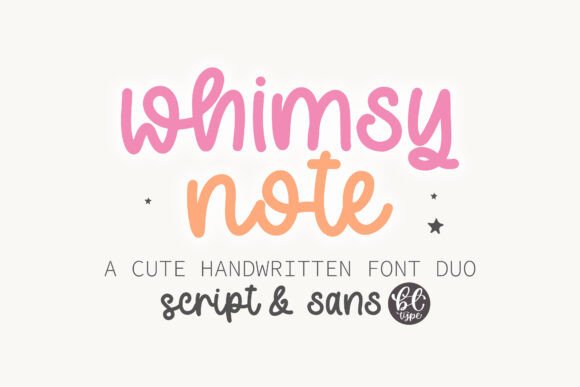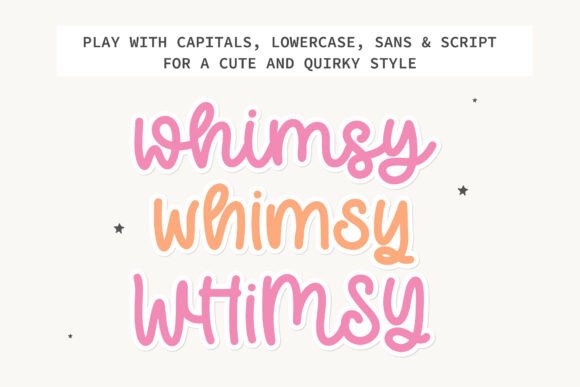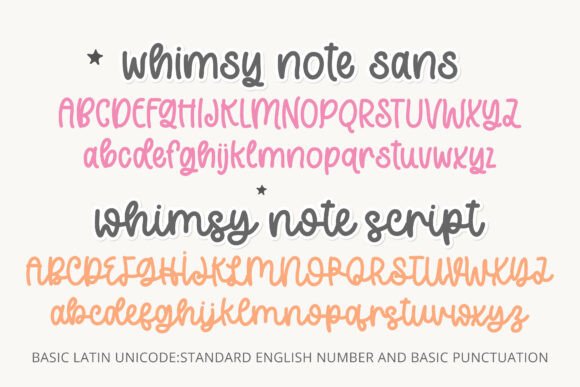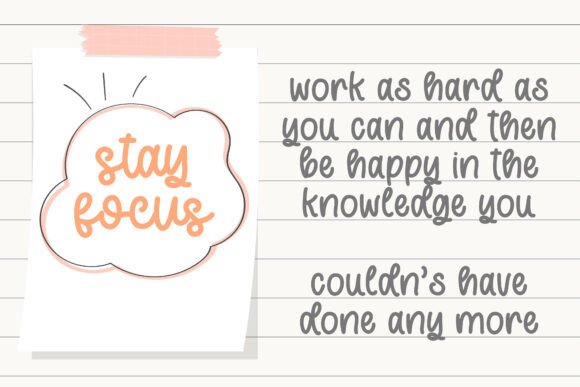
Whimsy Note Font
Whimsy Note is a cool font duo, friendly, and informal handwritten font that can be used for all chalkboard quotes or teaching material! Its authentic look and feel will add a personal and realistic touch to your designs